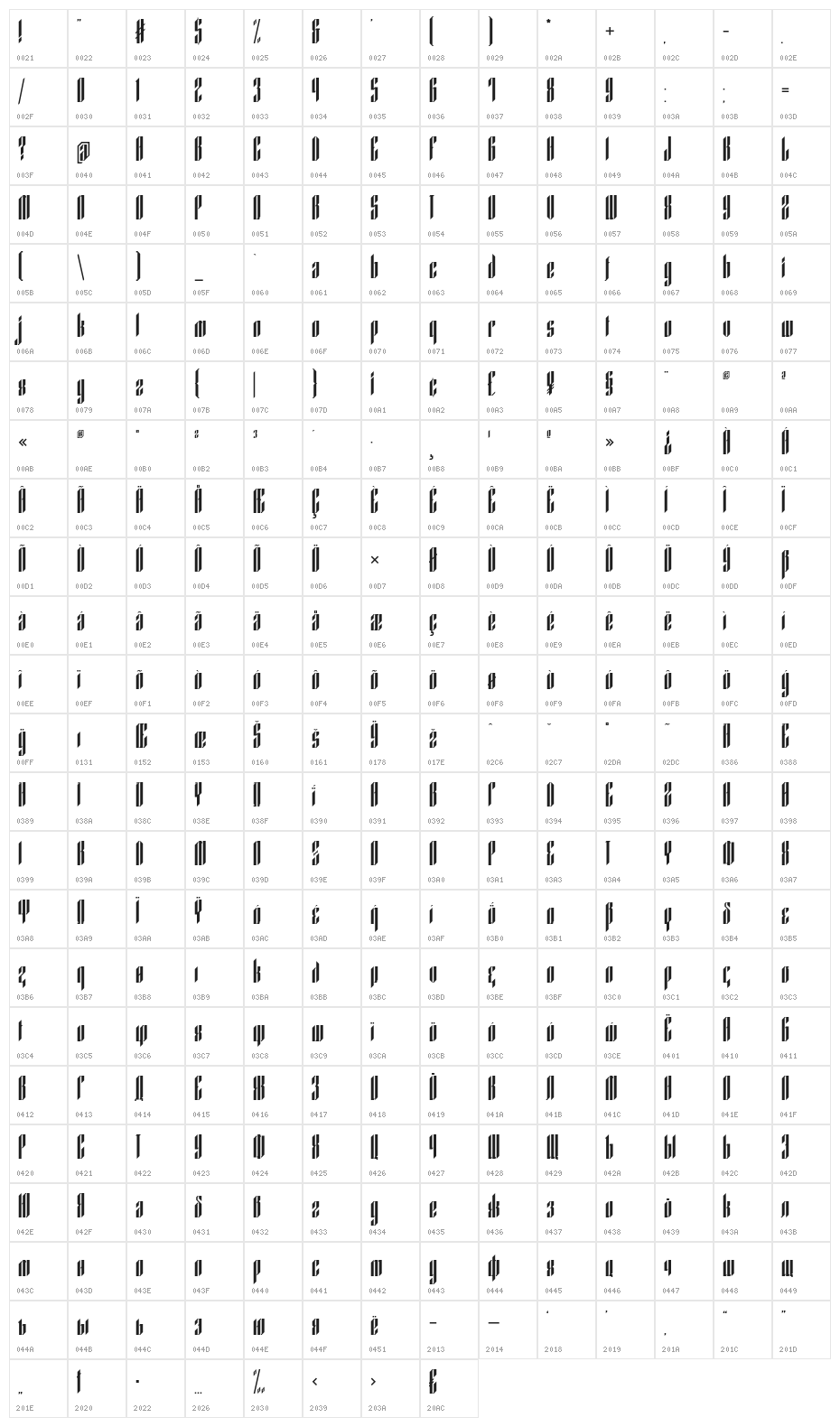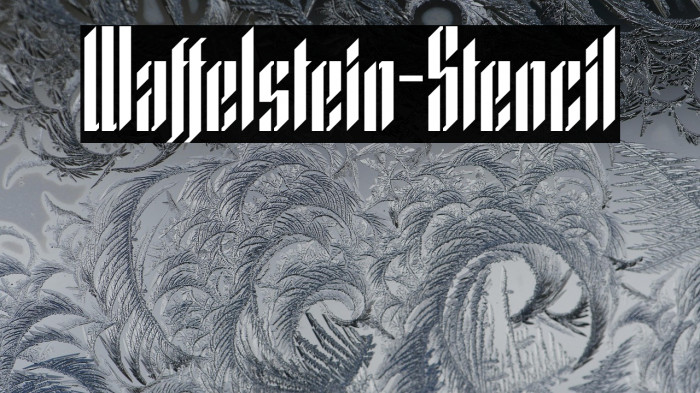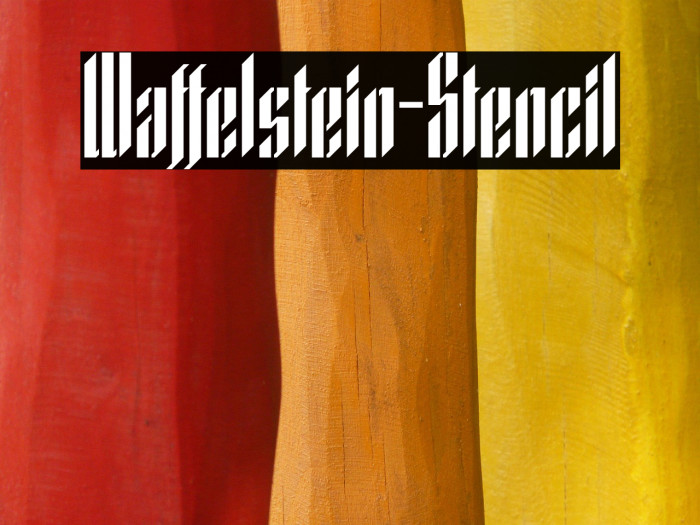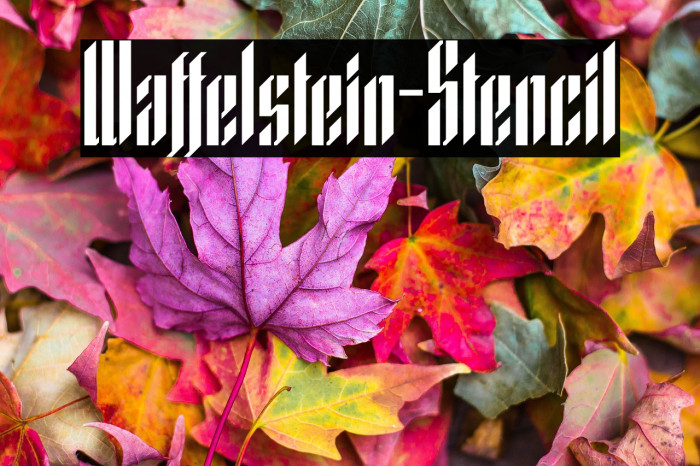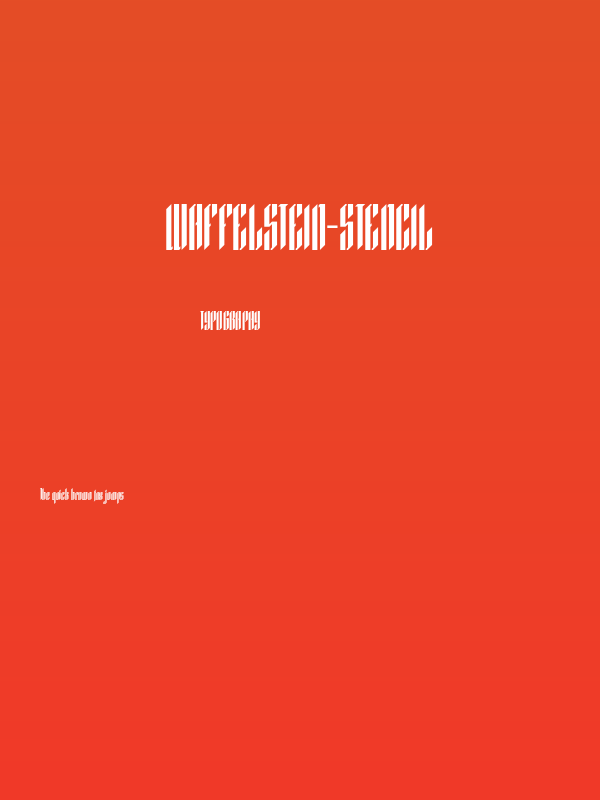
Waffelstein-Stencil Font
Waffelstein-Stencil Description
This font features a bold, stencil-like design with sharp, angular edges and a strong geometric presence. The characters are tall and narrow, creating a striking and impactful appearance. The uppercase and lowercase letters maintain a consistent style, with the uppercase being more pronounced. The numbers and special characters follow the same aesthetic, ensuring uniformity across all glyphs. The stencil effect is achieved through strategic gaps in the strokes, adding a unique and industrial feel. This font is ideal for projects that require a bold statement or a modern, edgy look.
Proposed ProjectsIdeal for branding, posters, signage, and any project needing a modern, industrial touch.